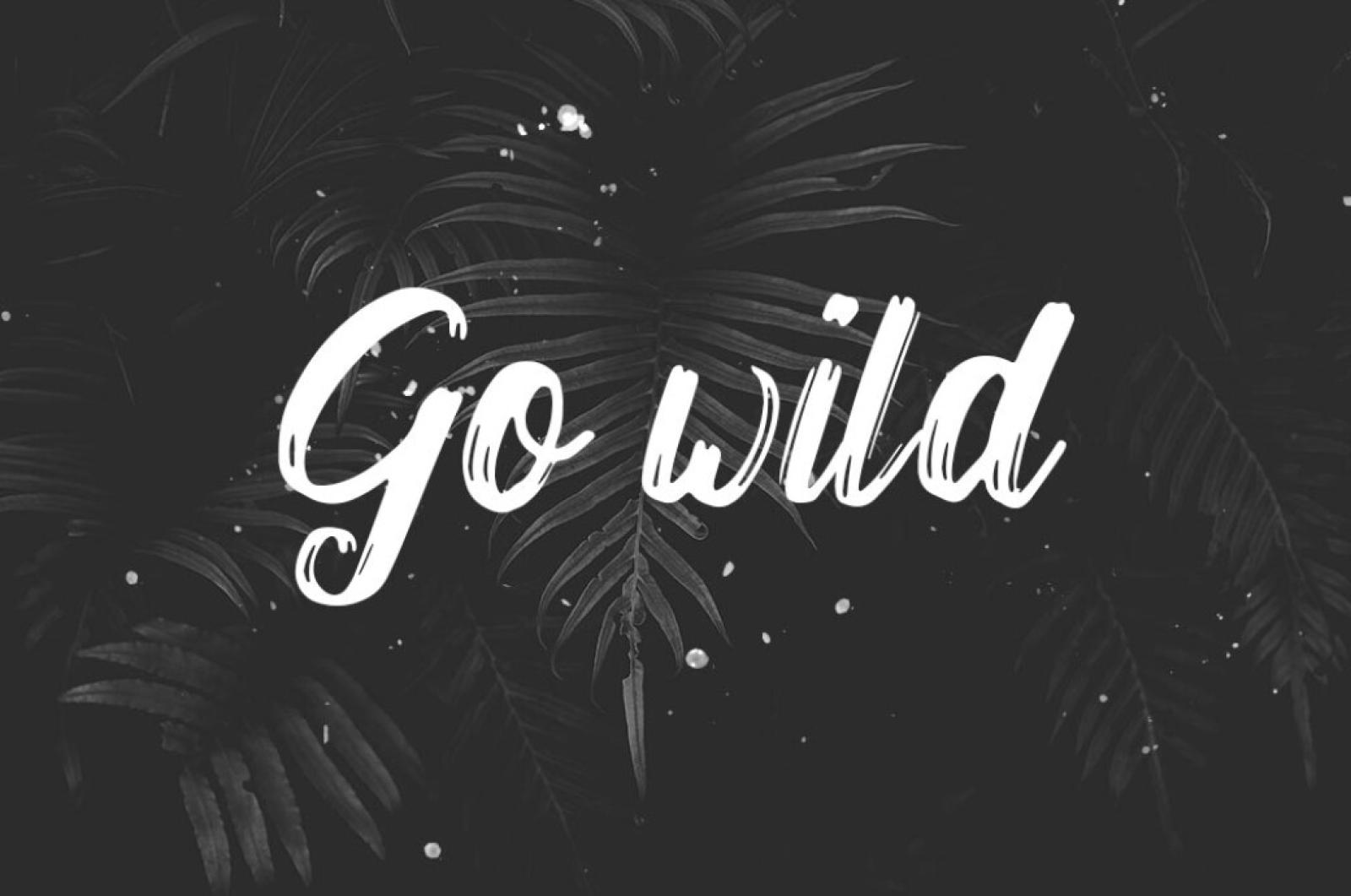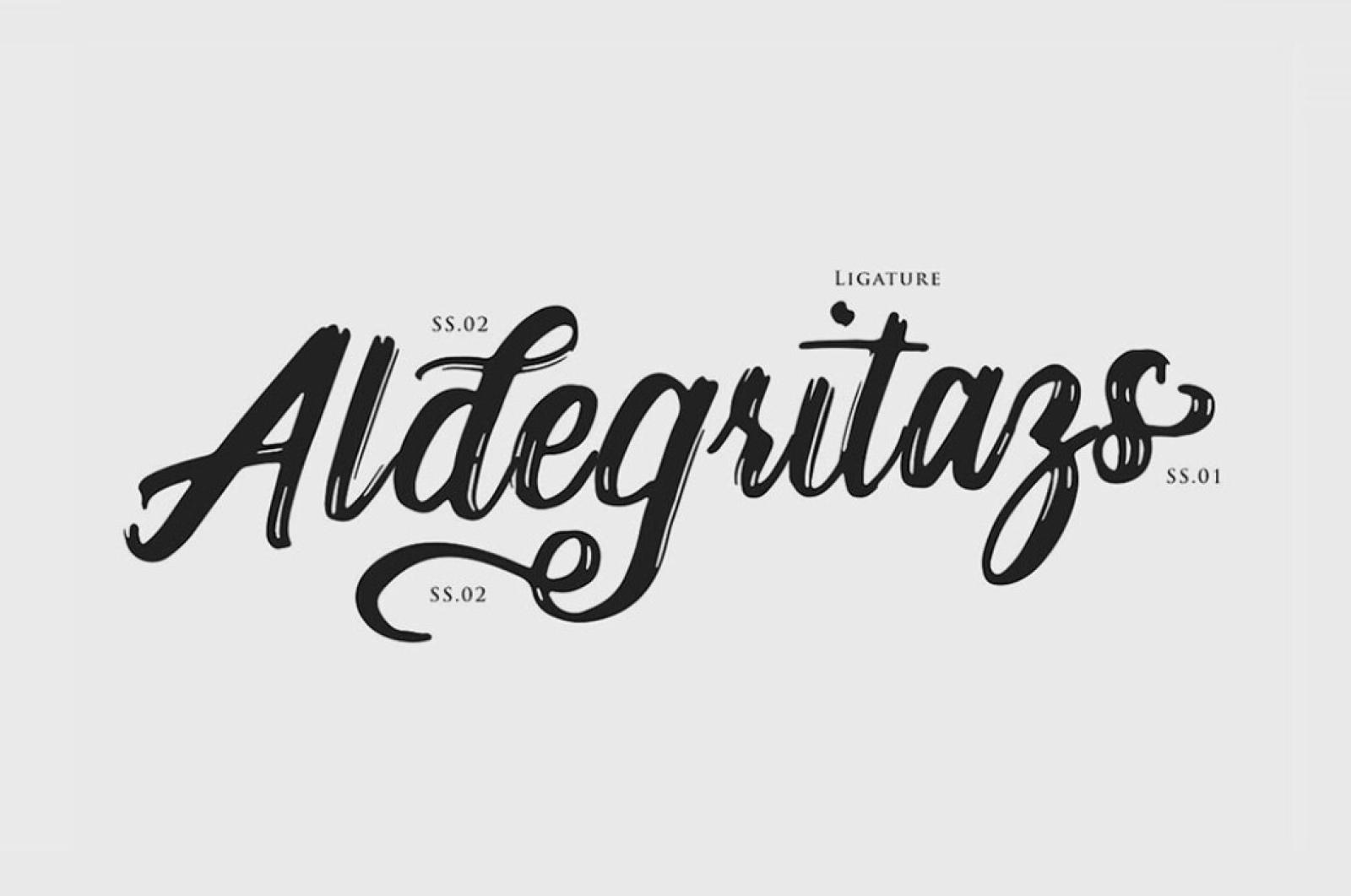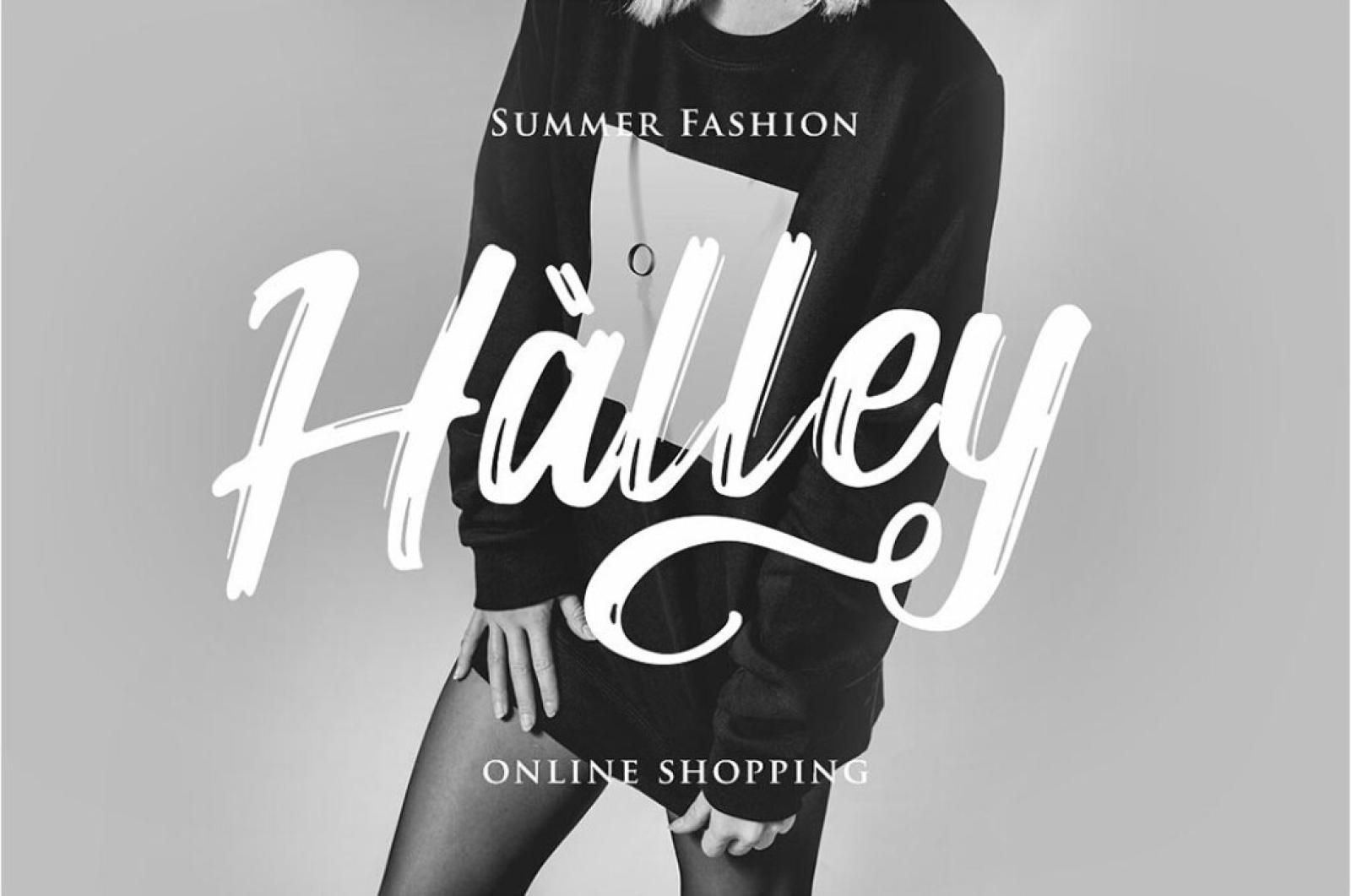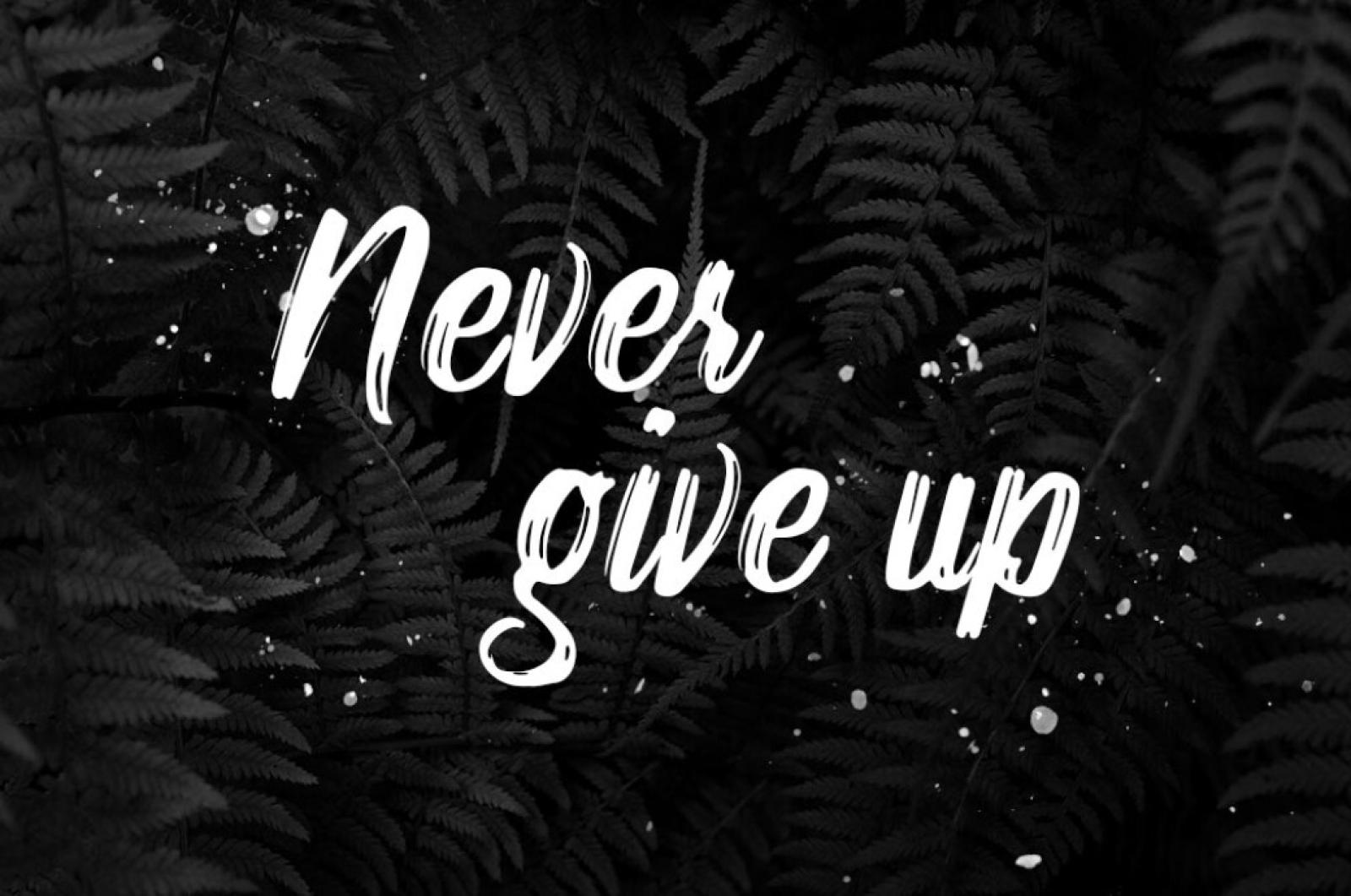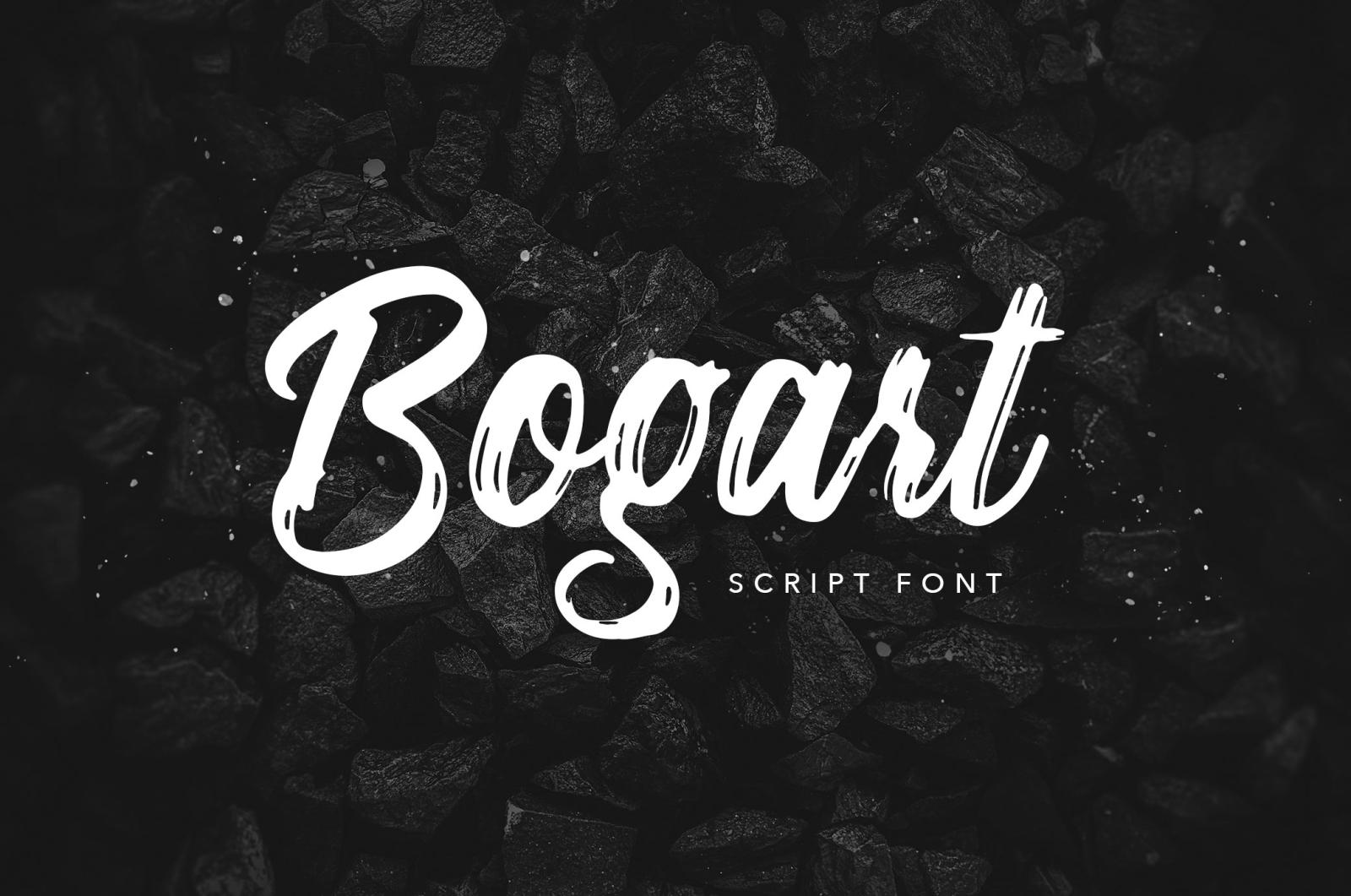
Bogart Script Font
Were just amazed, thats all. Brush fonts are our passion we share like the brightest flame with this one - a vibrant cursive handwriting with a rough, edgy touch.
Inside you shall discover everything a high-class font possesses: uppercase & lowercase letters, numerals & punctuations, accents, ligatures, and PUA Unicode, enabling to access the alternates without special glyph software (e.g., Photoshop or Illustrator). Its basically the case when simplicity and pure art embrace and complement any project you touch - magazines, websites, branding, apparel - whatever! Magic? We guess so!